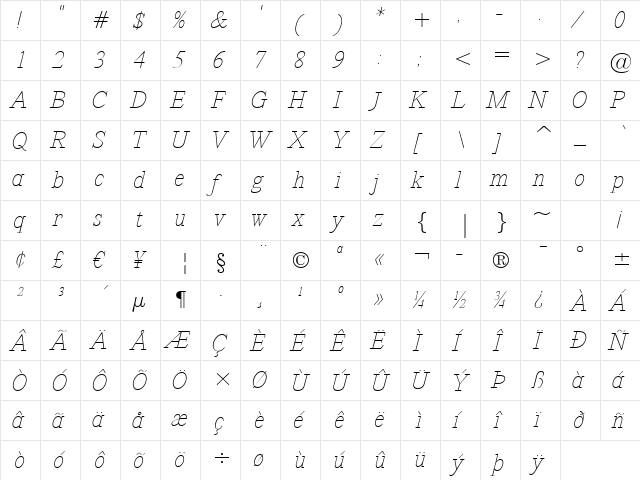
Revelation BTN Lt Oblique
Design Context for Revelation BTN Lt Typeface
Revelation BTN Lt is a composed and adaptable typeface that performs quietly and consistently across a wide range of design contexts. Its italic angle brings a sense of urgency and motion to the letterforms. Its slender proportions lend an understated elegance to any composition.
Pro Tip: Use Revelation BTN Lt for emphasis, pull quotes, and subheadings where its slanted energy can add rhythm to the layout.